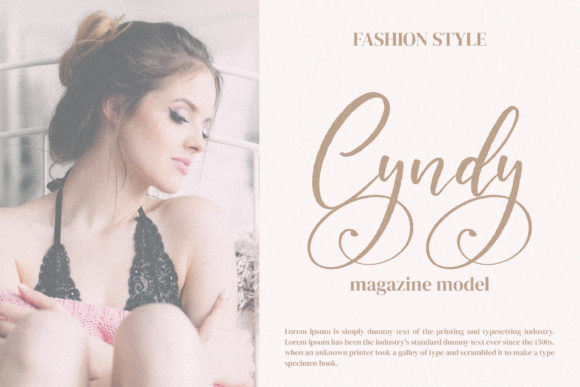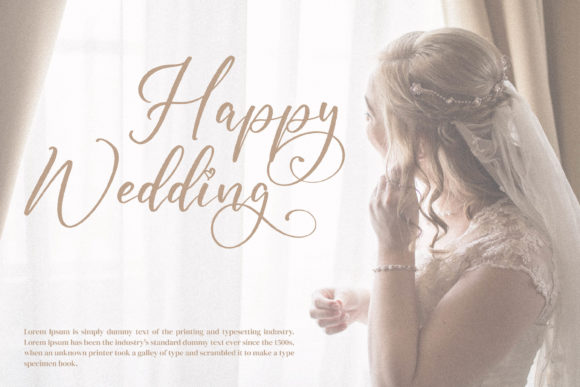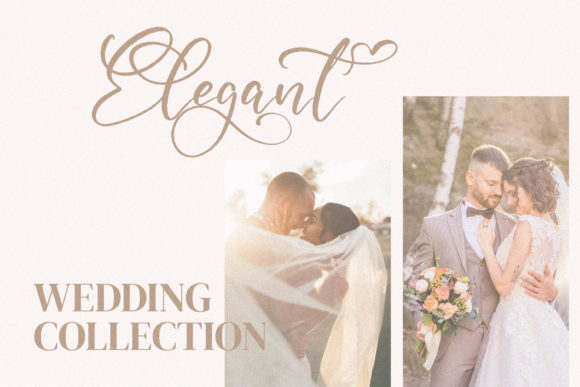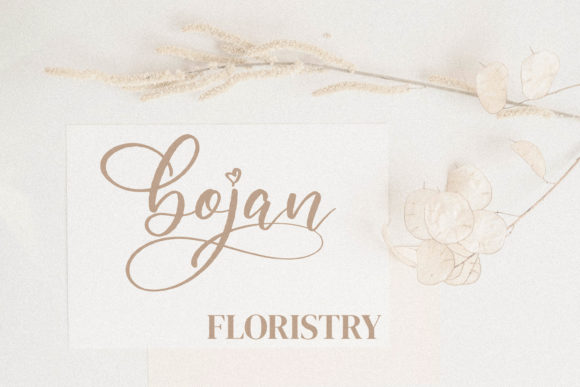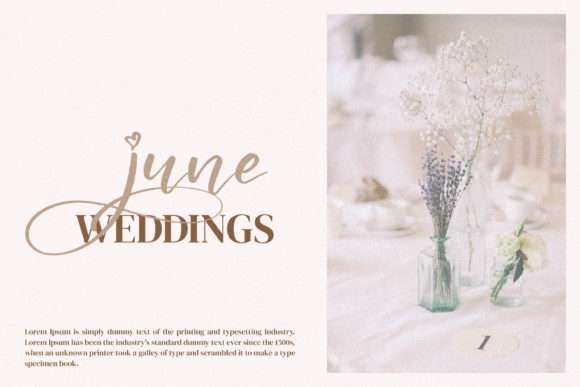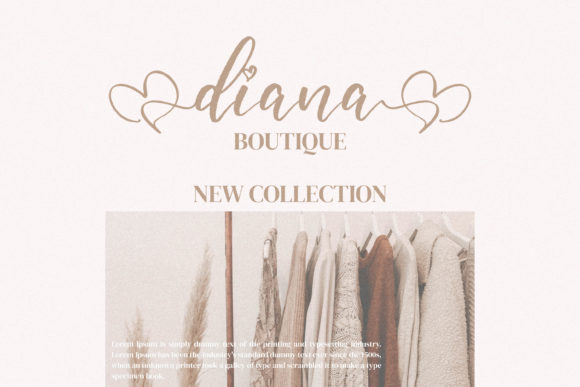
Cyndi Aulya Font: Elevate Your Designs with Elegance and Sophistication
Are you a designer or crafter looking for a premium font to add a touch of luxury to your projects? Look no further than Cyndi Aulya, a stunning script font that exudes elegance and sophistication. This beautiful font is perfect for a wide range of applications, from logos and branding projects to homeware designs, product packaging, and more.
What Makes Cyndi Aulya Special?
Cyndi Aulya is a premium script font that boasts a unique and stylish design, making it perfect for projects that require a high-end look. The font is PUA encoded, which means you can easily access all the glyphs and swashes, allowing you to create stunning designs with ease. Whether you’re working on a logo, invitation card, or product packaging, Cyndi Aulya is sure to impress.
Cyndi Aulya is incredibly versatile, making it suitable for a wide range of design projects, including:
- Logos and branding projects: Create a lasting impression with a custom logo that showcases your brand’s personality and style.
- Homeware designs: Add a touch of elegance to your home decor with custom designs that feature Cyndi Aulya.
- Product packaging: Make your products stand out on store shelves with eye-catching packaging that features this beautiful font.
- Mugs and ceramics: Create stunning designs for mugs, plates, and other ceramics that will make your products truly unique.
- Quotes and posters: Add a touch of sophistication to your quotes and posters with Cyndi Aulya.
- Shopping bags and t-shirts: Create custom designs for shopping bags and t-shirts that will make your brand stand out.
- Book covers and name cards: Use Cyndi Aulya to create stunning book covers and name cards that exude elegance and sophistication.
- Invitation cards and greeting cards: Make your invitations and greeting cards truly special with this beautiful font.
- Labels and photography: Use Cyndi Aulya to create stunning labels and watermarks that will add a touch of luxury to your photography.
Key Features of Cyndi Aulya
Cyndi Aulya offers a range of features that make it the perfect choice for designers and crafters, including:
- PUA encoded: Easily access all glyphs and swashes with ease.
- Premium quality: This font is designed to provide a high-end look that will elevate your designs.
- Versatile: Suitable for a wide range of design projects, from logos to product packaging.
- Elegant and sophisticated: Add a touch of luxury to your designs with this stunning script font.
Why Choose Cyndi Aulya?
With so many fonts available, why choose Cyndi Aulya? Here are just a few reasons why this font stands out:
- Unique design: Cyndi Aulya boasts a unique and stylish design that will make your projects stand out.
- High-quality: This font is designed to provide a premium look that will elevate your designs.
- Versatile: Suitable for a wide range of design projects, making it a great addition to your font library.